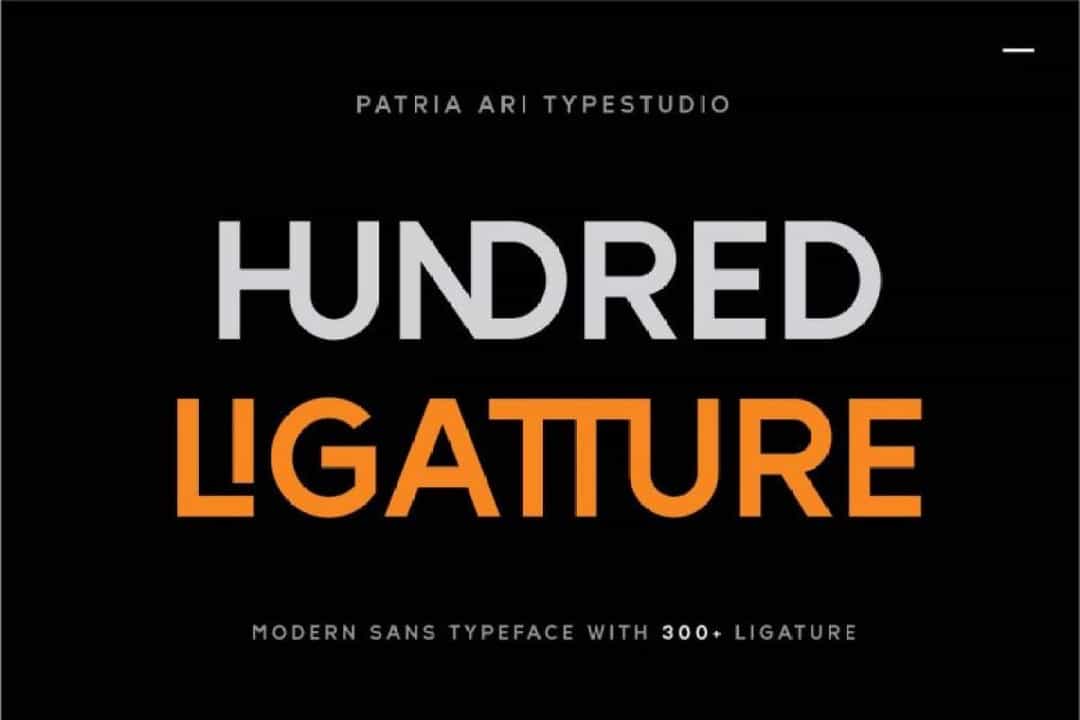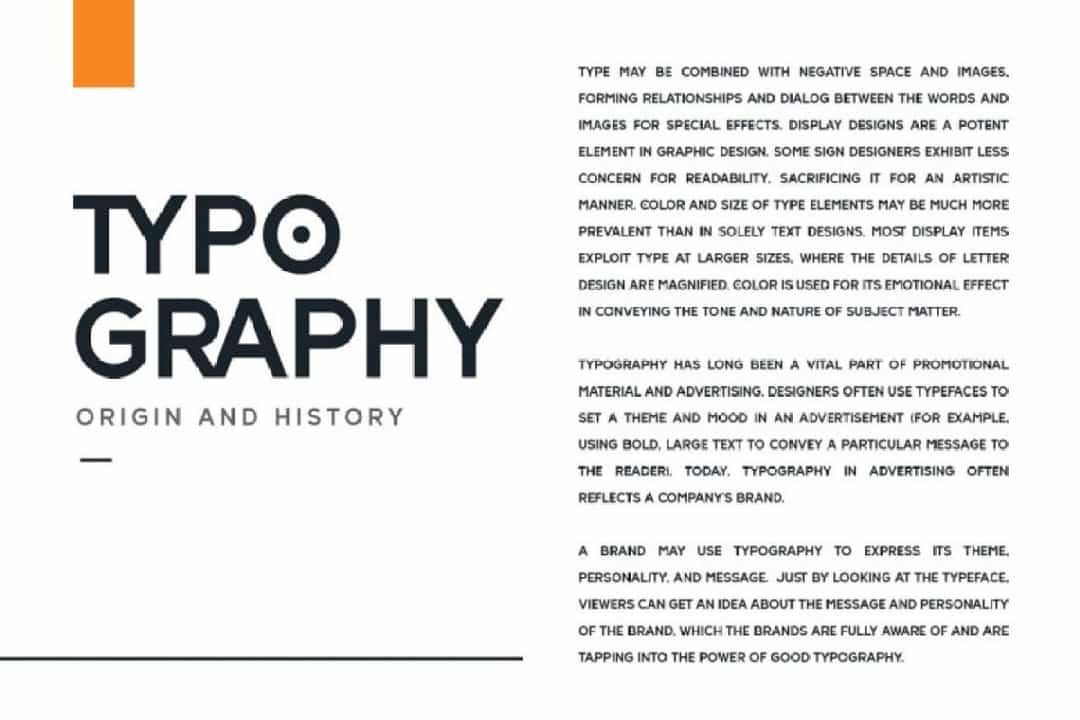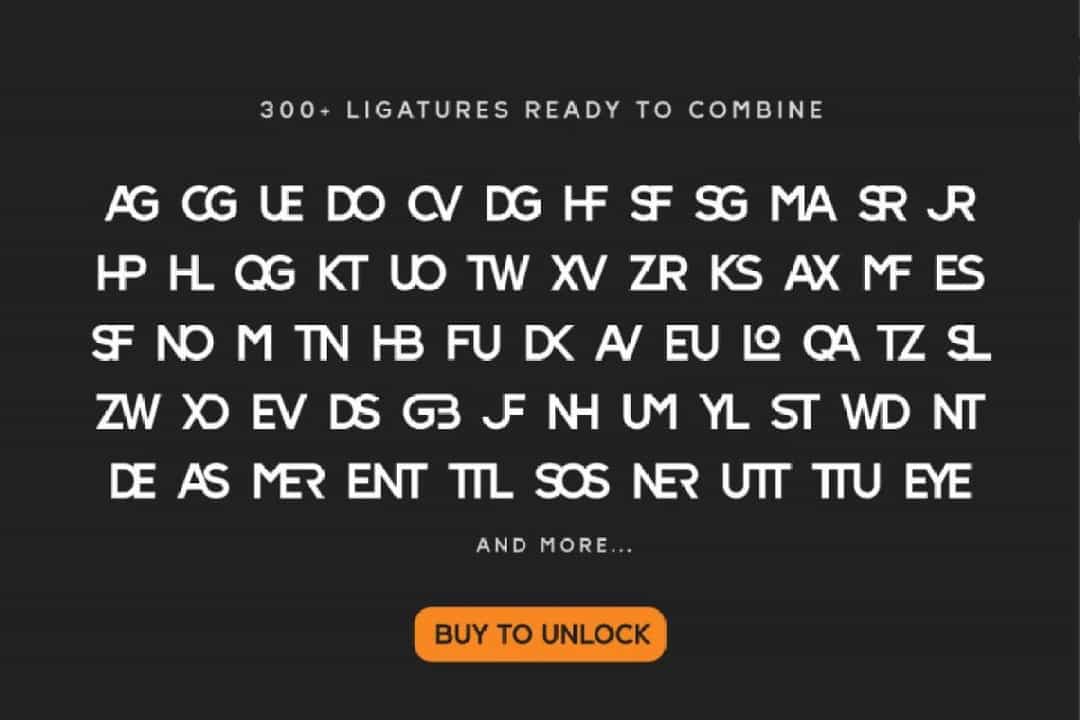
Hundred Ligatture is an attractive modern sans logo font with more than hundred optional ligatures that can be used to enhance the design. Hundred Ligatture is suitable for headline of any size and logotype, editorial design, packaging, broadcast and web design etc.